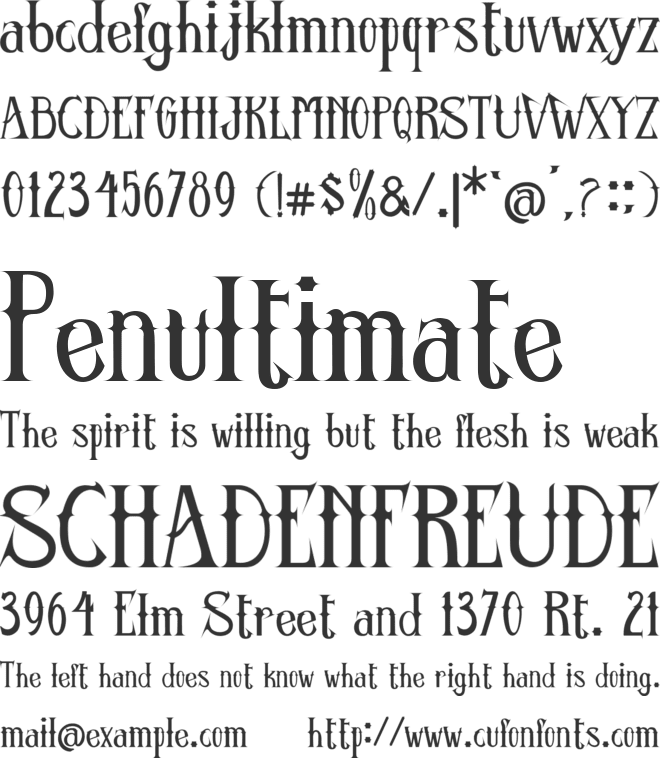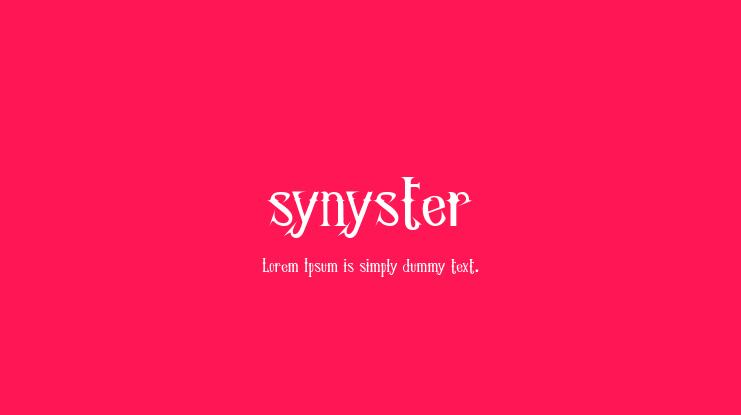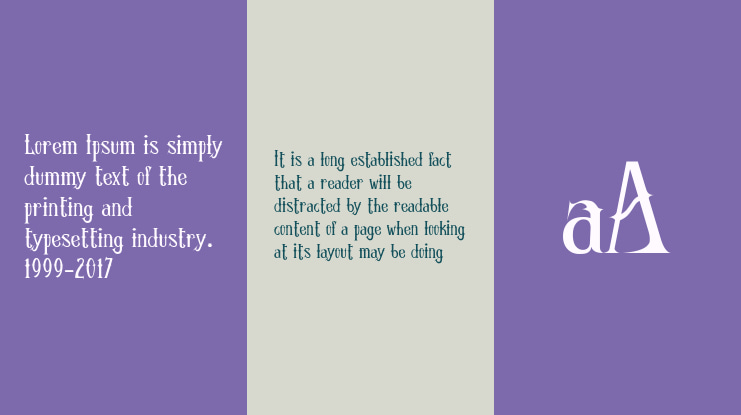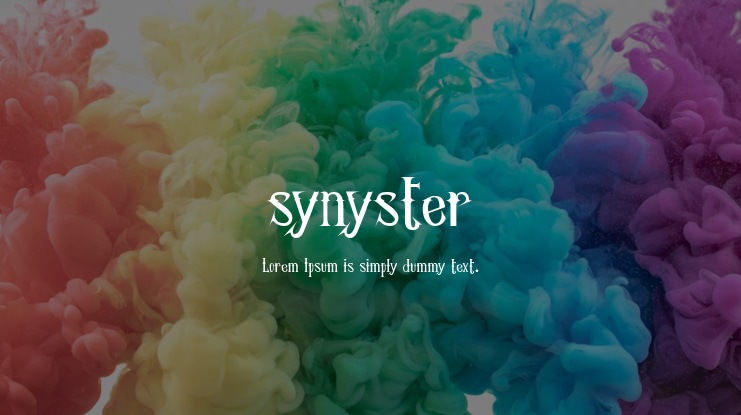
synyster Font
Khairil Anwar
Synyster is a font with a gothic and dark style theme, although it can also be combined with modern trendy serif styles now, perfect for horror or dark impressions. can be used in logotype media designs, merchandise, posters, t-shirts, and the like